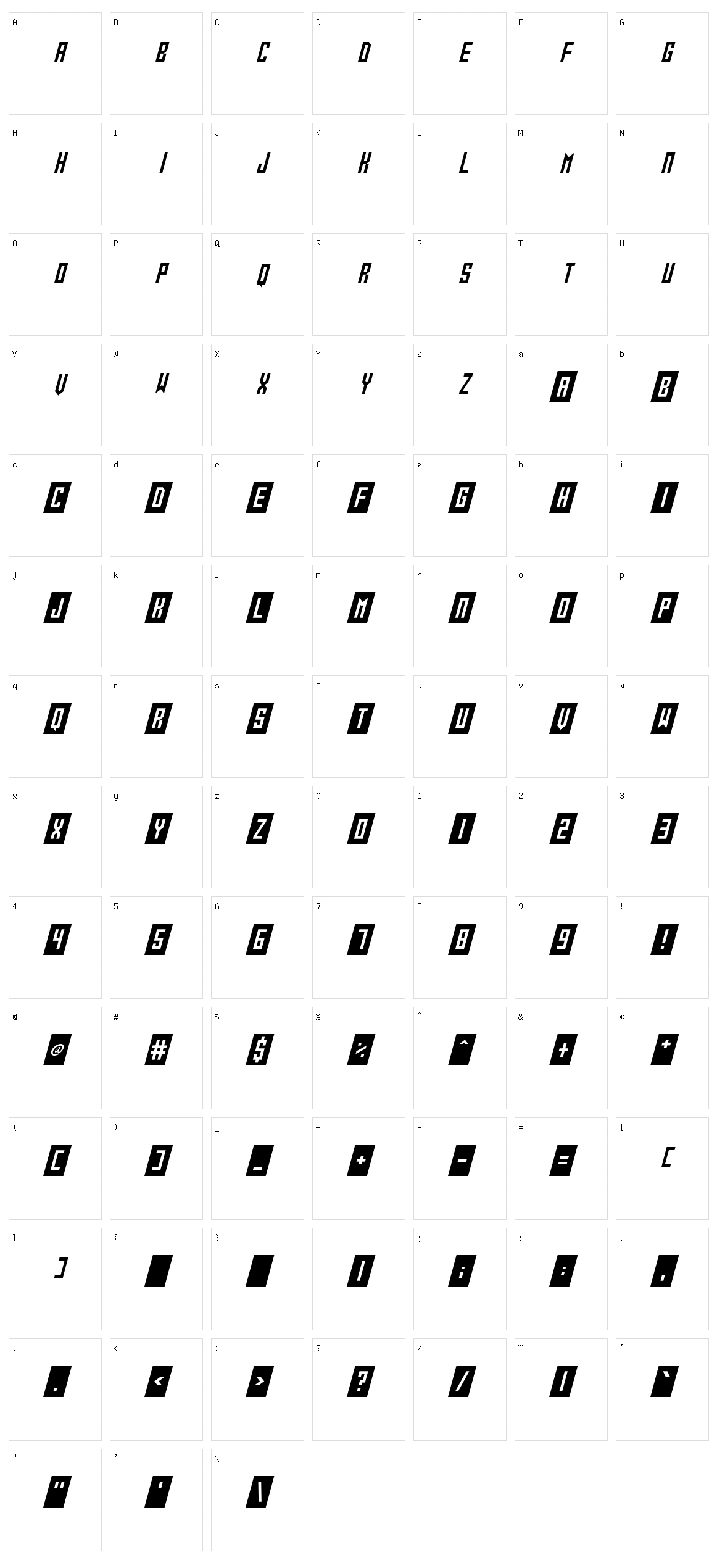
The free font Gameshow is carefully designed by Hawtpixel, showcasing a thoughtful balance of creativity and usability and falls under the Square font style. When you download the ZIP file, it contains only 18.11 KB of font files, making it lightweight and quick to download. Please review the license details below to understand permitted usage and distribution rights. If license information is not available, we recommend using this font for personal projects only or contacting the author directly for commercial usage permissions.